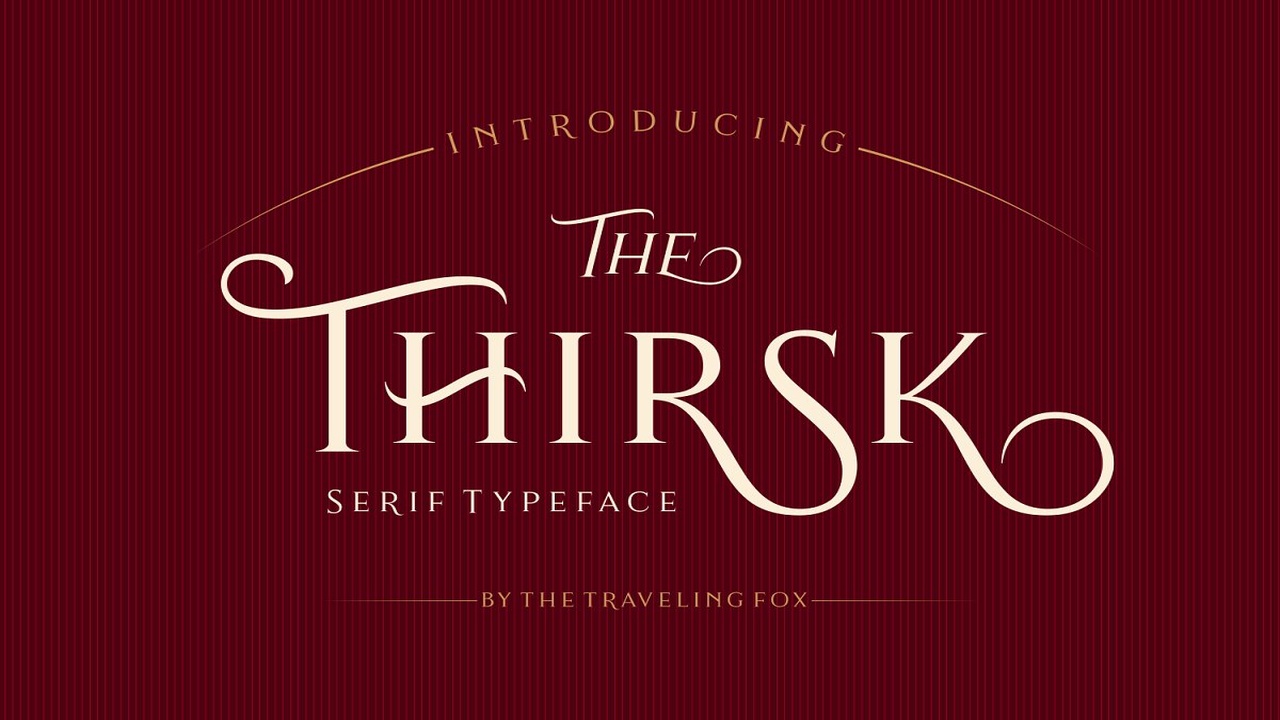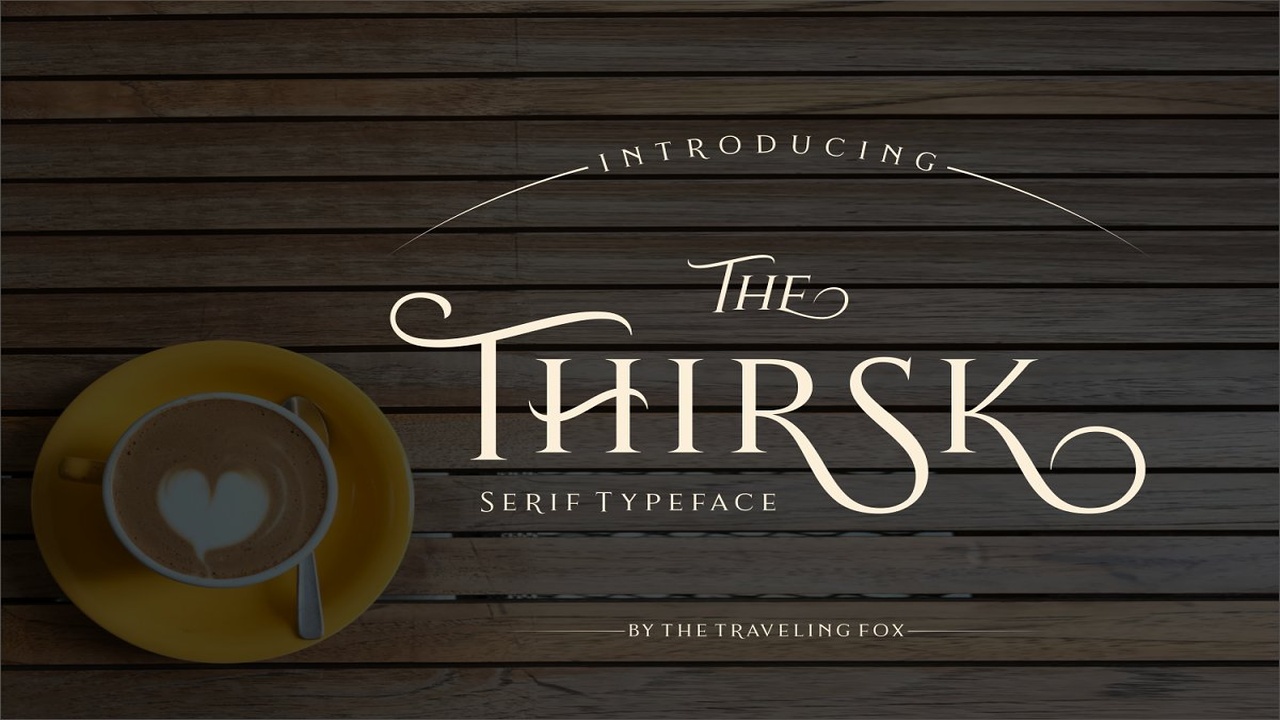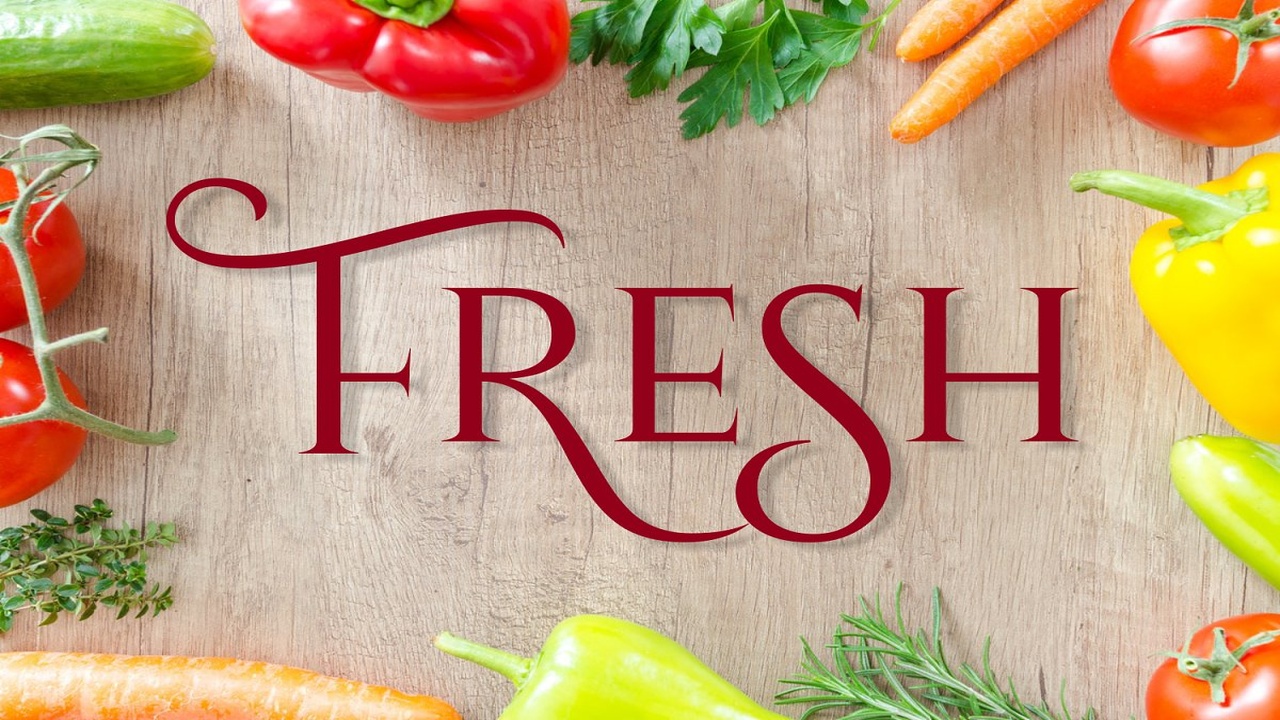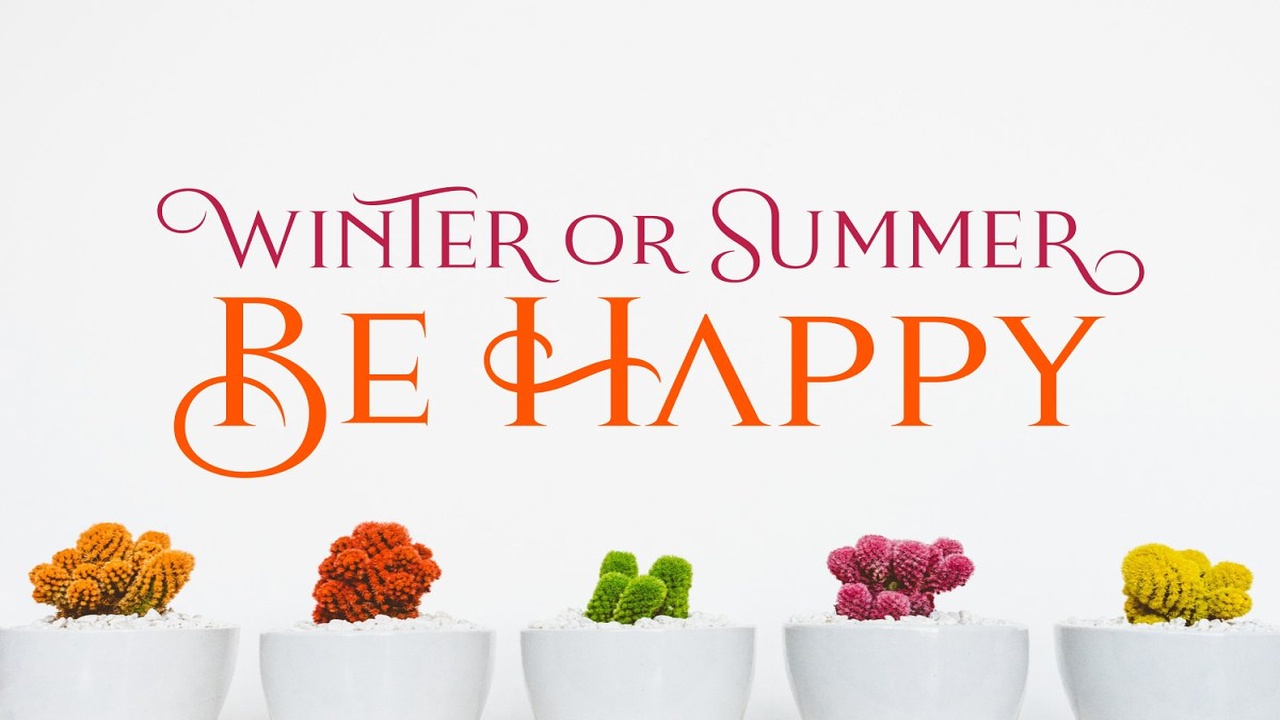
About the Thirsk An Elegant Serif Font
Thirsk is a decorative, vintage looking serif, The Thirsk font is packed with alternates, making it a very versatile type that can be used in many different projects, No matter what kind of project you use it in, you will be sure to leave an impression, For questions, please get in touch via: thetravelingfoxdesign@gmail, comView all glyphs here: https://www